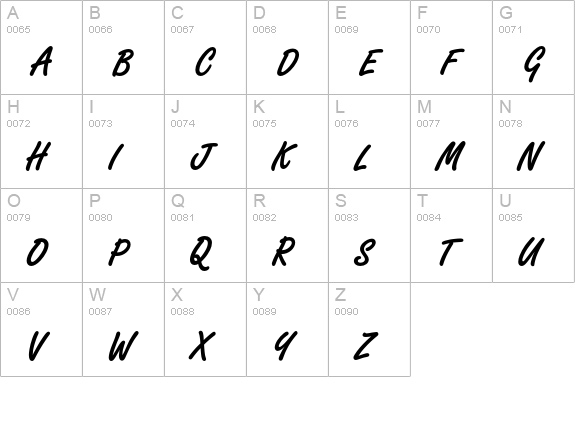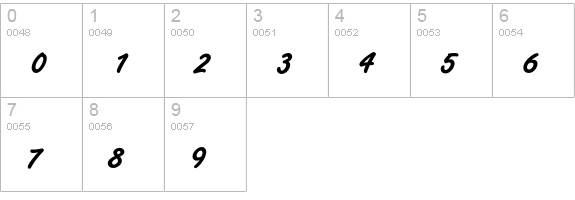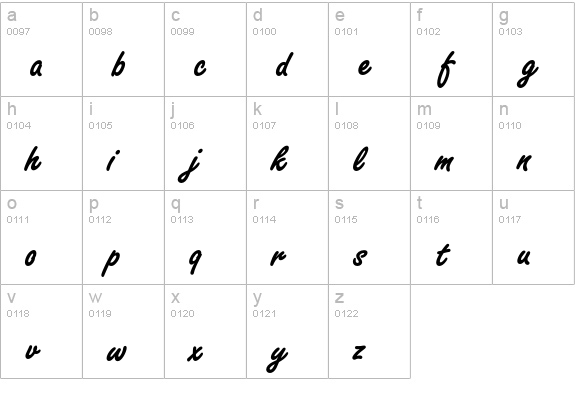
FreestyleScriptEF-Bold Font Details
FreestyleScriptEF-Bold is a strong, high-contrast variant in the FreestyleScriptEF typeface family \xE2\x80\x94 well suited to headlines, attention-grabbing titles, and strong calls-to-action.
FreestyleScriptEF-Bold is a bold and dynamic font that exudes creativity and modernity. Its sleek lines and unique style make it perfect for a variety of design projects, from logos to branding materials. The bold weight of the font adds a touch of strength and impact to any text, making it stand out effortlessly. What makes FreestyleScriptEF-Bold even more appealing is that it is available for free download at FontsMarket.com. This means you can easily access this stylish font and incorporate it into your designs without any cost. Whether you're a graphic designer, a business owner, or a hobbyist looking to add a touch of flair to your projects, FreestyleScriptEF-Bold is a versatile and eye-catching option that won't break the bank. Download it today and unleash your creativity!